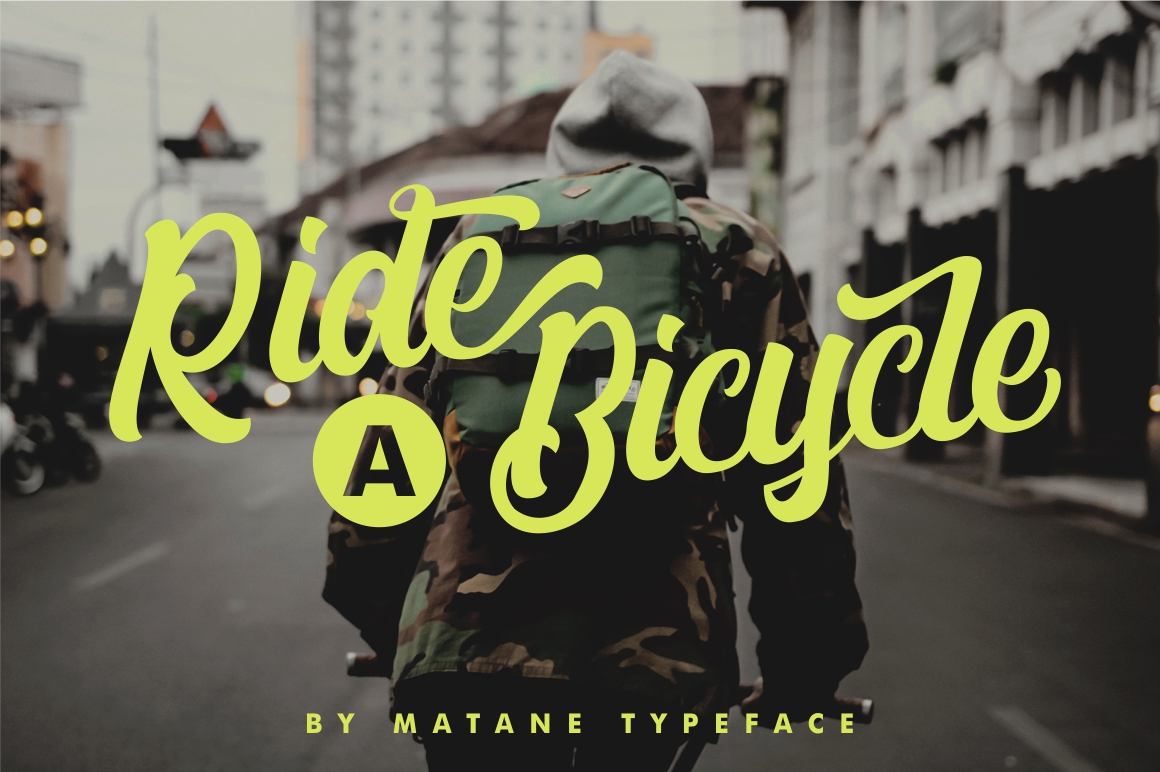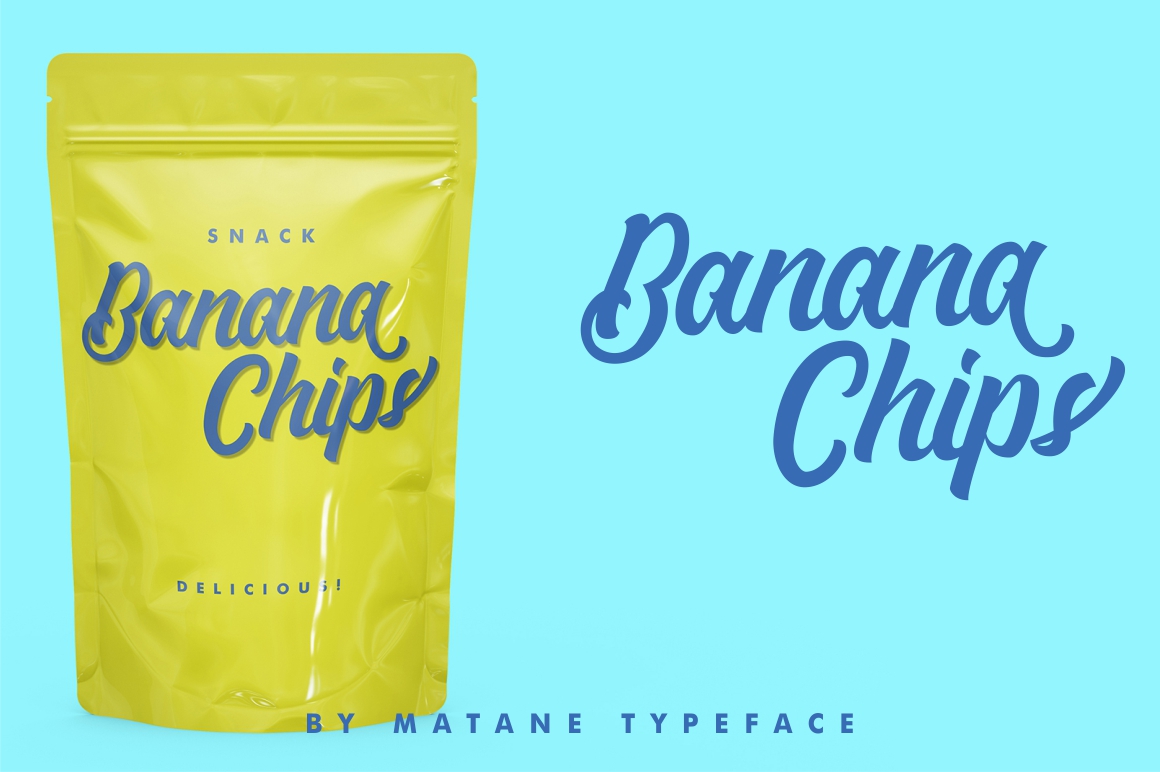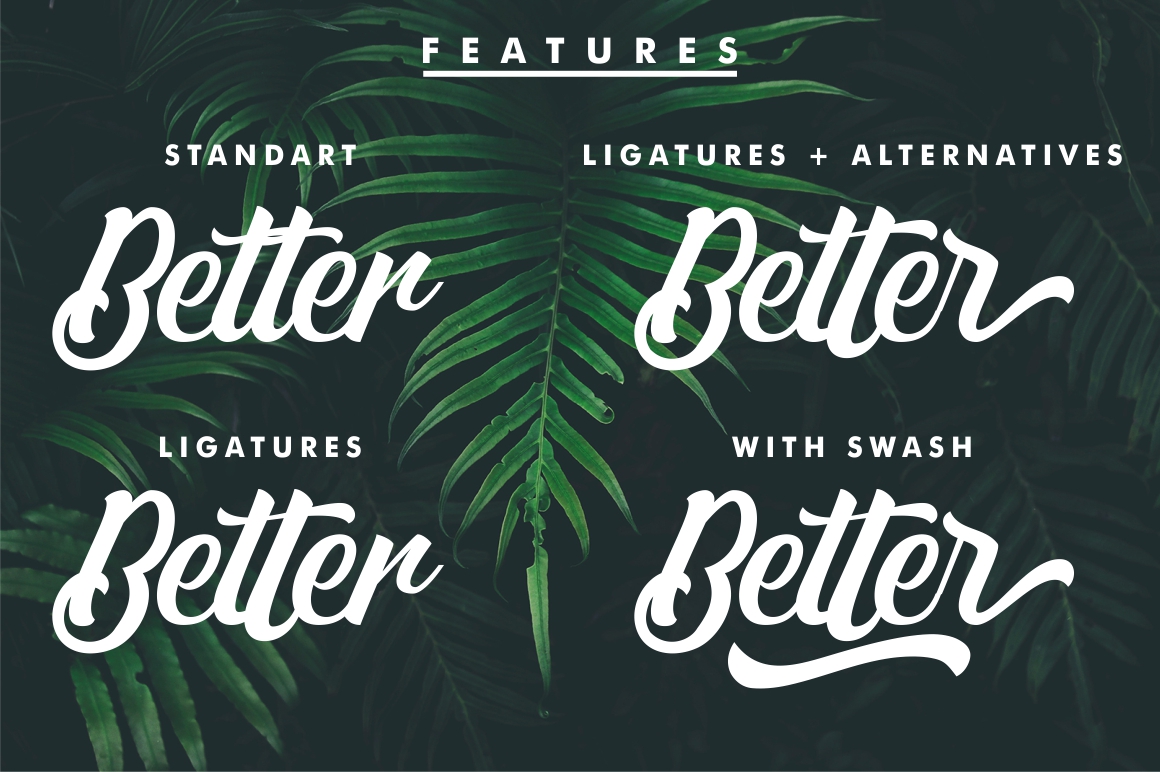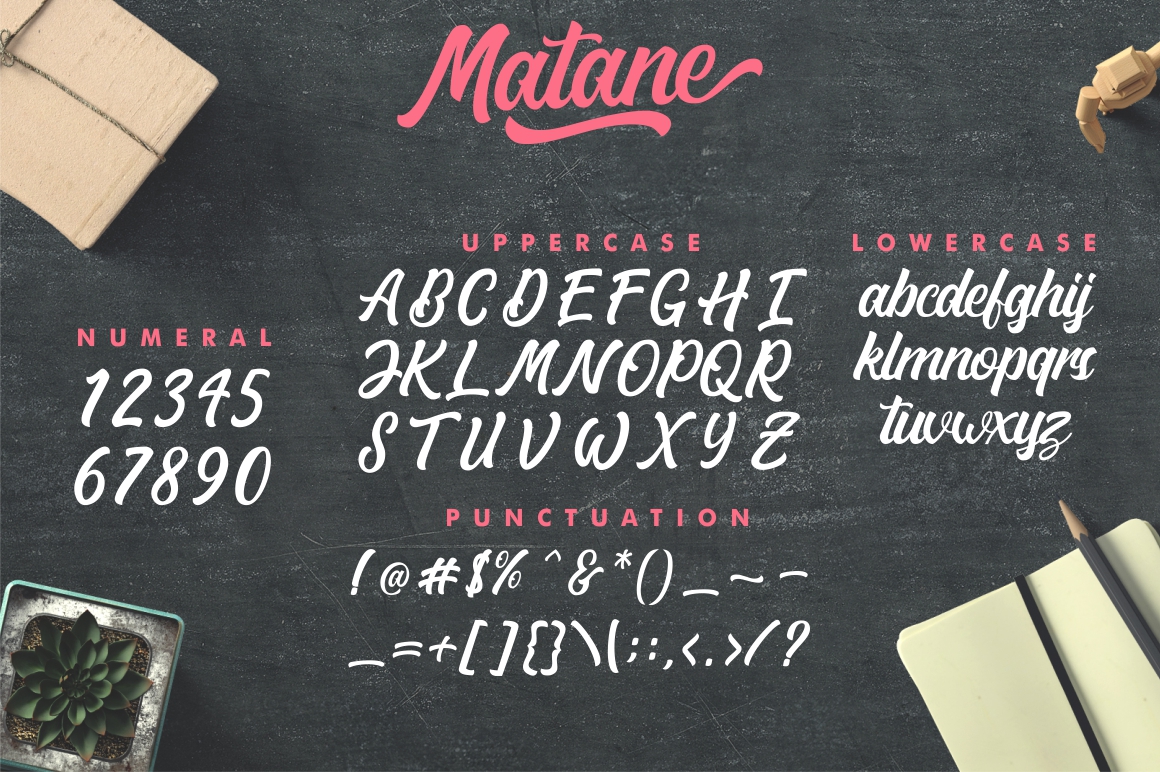
Matane Free Font
Matane Free Font is a stylish hand painting script. We give you a bonus swash design to make the Matane Typeface look so awesome. It has dynamic and beautiful OpenType features. This free typeface was designed by a talented Yudha Ageng. If you like it don’t forget to check out the full version.